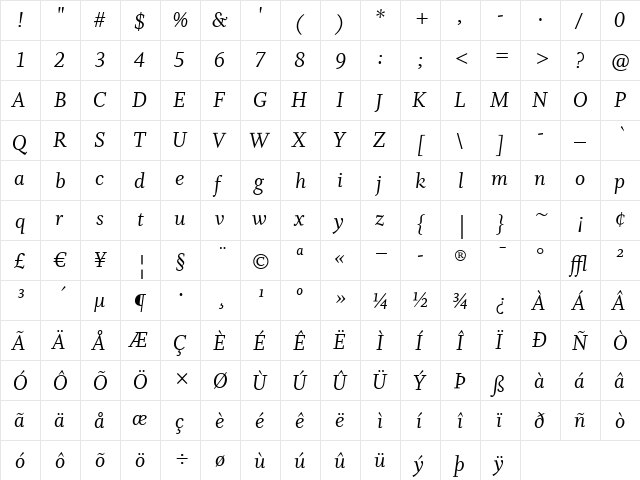
Whitman-ItalicLF Regular
| Foundry | The Font Bureau, Inc |
| Designer | Kent Lew |
Design Context for Whitman-ItalicLF Typeface
Whitman-ItalicLF is a composed and adaptable typeface that performs quietly and consistently across a wide range of design contexts. The slanted form adds forward momentum and visual energy.
Pro Tip: Try Whitman-ItalicLF for annotation and caption copy alongside an upright companion — the contrast in angle creates a dynamic but ordered typographic system.